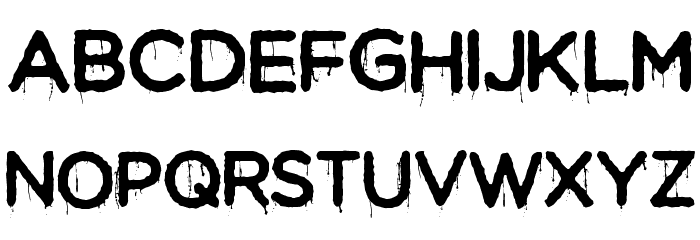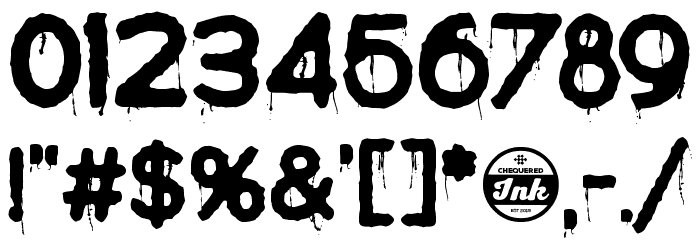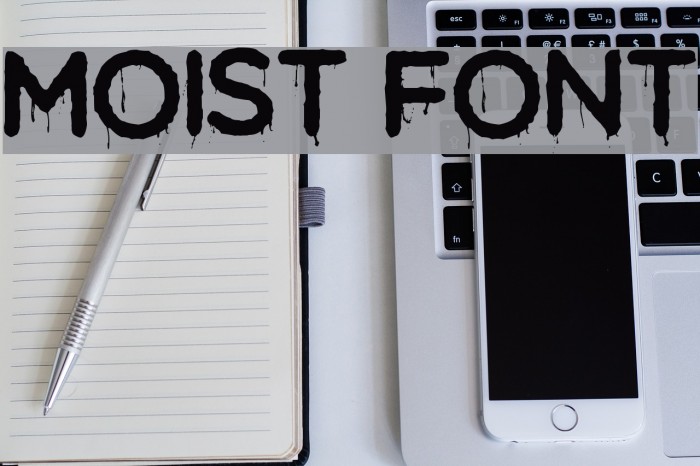
Moist Font
This font features a bold and rugged style with a distressed, grungy appearance. The characters are designed to look as if they are dripping or melting, giving them a unique, edgy look. The uppercase and lowercase letters maintain a consistent style, with thick strokes and irregular edges that enhance the font's raw and artistic feel. Numbers and special characters follow the same design principles, making the font cohesive across all elements. This font is ideal for projects that require a bold statement or an urban, street-art aesthetic.
A bold, distressed font with a dripping, grungy style.
- Proposed Projects: Ideal for album covers, streetwear branding, posters, and urban-themed designs.
- Overall Style: Grunge, Urban, Edgy